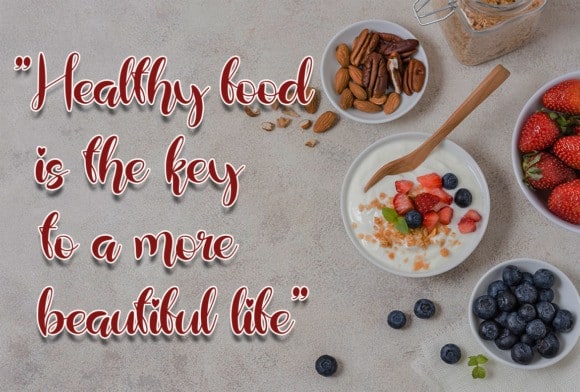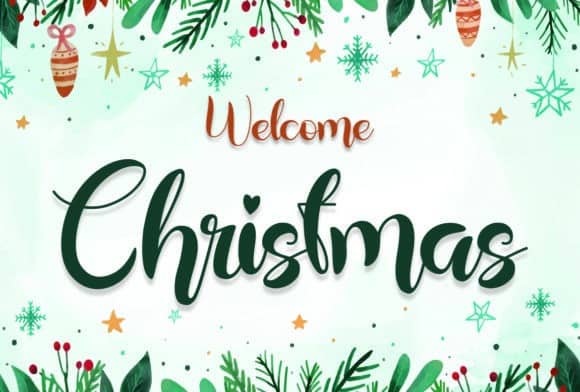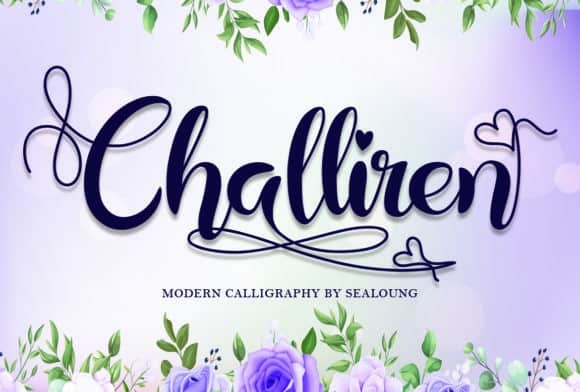
Challiren Calligraphy Font
Challiren Calligraphy Font is a modern script font can make your text appear elegant and luxurious! This font is an elegant script font created by Sealoung with a contemporary atmosphere and impeccable form, inspired by timeless classic calligraphy. This versatile script font has a wide spectrum of applications ranging from greeting cards to headlines and is guaranteed to add a romantic feel to your next project.